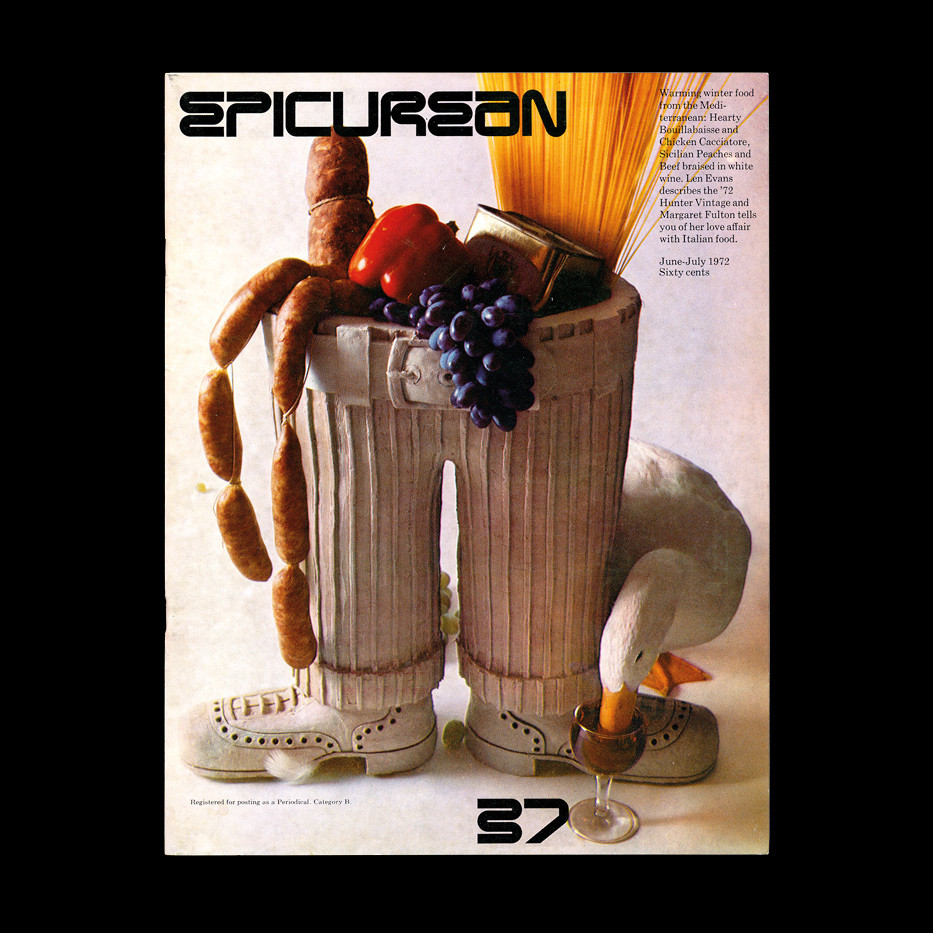
Used for Graphis Posters - the international annual of poster art.
Looks familar. Is it custom or a typface?
What ar some similar typefaces?
Likely custom. Related graphically: Rephlex
Thanks Stephen! About that... do you know if Mimmo Castellano ever released this typeface?
Because I see a very similar typeface in use on this cover of Epicurean, designed by Lee Mason: